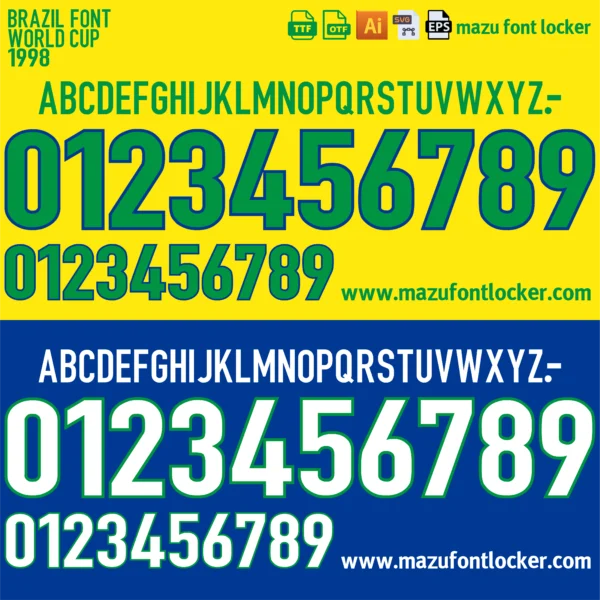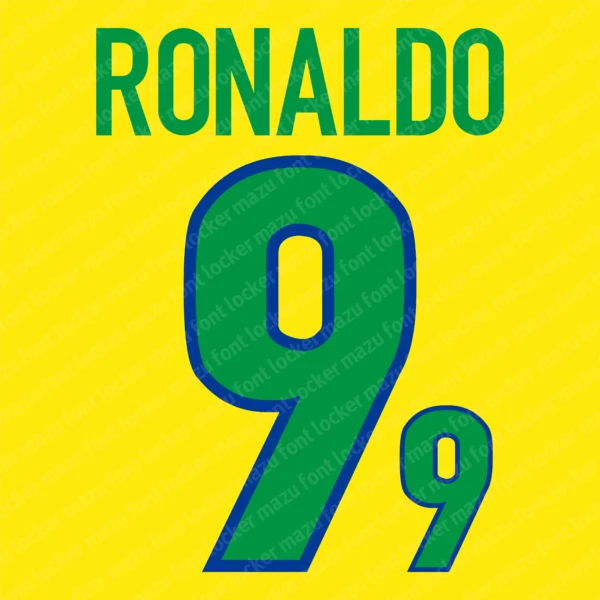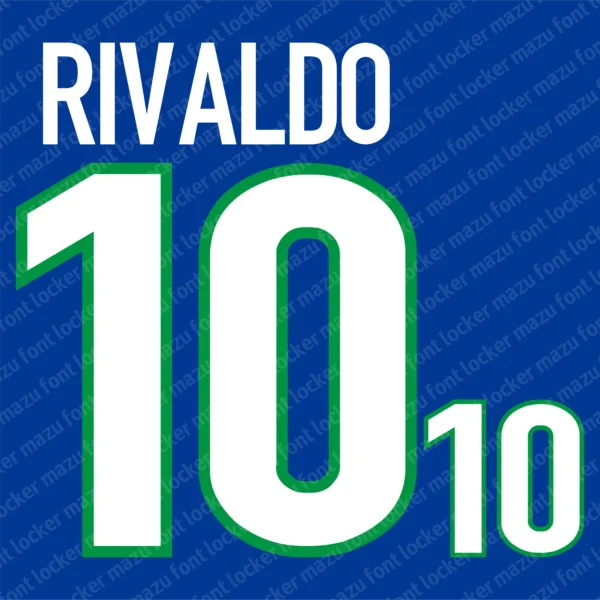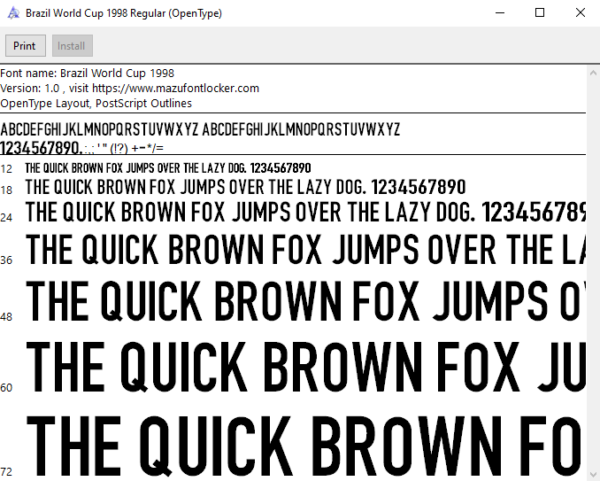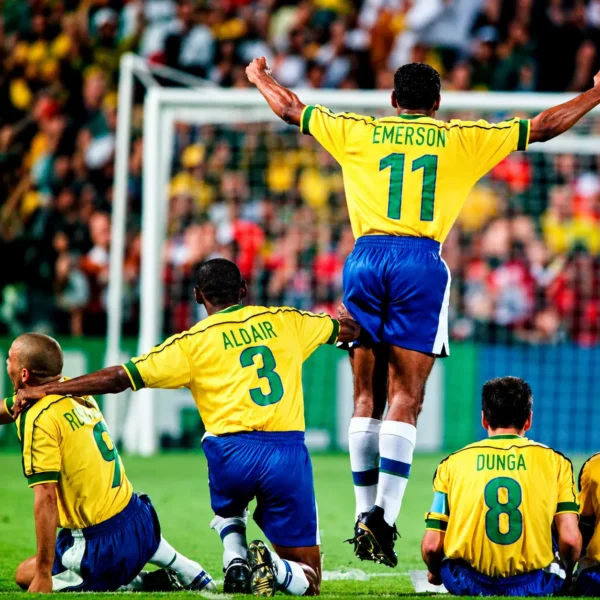
Brazil World Cup 1998 Font Vector – Ultimate Explosive Yellow-Green Powerhouse
Download the Brazil World Cup 1998 Font Vector and powerfully recreate the bold, vibrant, and explosive match-style lettering worn by the Brazilian National Team during their legendary 1998 FIFA World Cup campaign. This font captures the fiery and commanding typography that embodies the passionate yellow-and-green Canarinho spirit, delivering unmatched authenticity and energy for premium jersey mockups and football designs.
Brazil World Cup 1998 Font – Authentic Canarinho Typeface
The Brazil World Cup 1998 Font is a premium typeface that accurately recreates the official match lettering worn by the Brazil national team during the 1998 FIFA World Cup in France. This high-quality font kit captures the bold, vibrant, and iconic typography that represents the legendary Canarinho campaign.
Designed for professional designers and passionate Brazil fans, the Brazil World Cup 1998 Font delivers perfect authenticity for creating retro jersey mockups, fan merchandise, matchday posters, social media graphics, and much more. It blends beautifully with the team’s iconic yellow and green colors.
Why Choose Brazil World Cup 1998 Font
This font stands out because of its sharp details and strong historical identity. Every letter and number is crafted to match the exact style used on the players’ shirts during the 1998 World Cup. Whether you are making realistic retro shirt templates or nostalgic football content, the Brazil World Cup 1998 Font gives your designs that authentic Canarinho look.
The letterforms in the Brazil World Cup 1998 Font are tall, bold, and highly readable. The strokes have a strong and controlled weight that looks powerful on the back of jerseys while maintaining excellent clarity and elegance.
The numerals use bold curves and firm edges, giving them a confident and premium appearance. This design ensures great legibility whether used in large print formats, digital mockups, or video content.
- Full uppercase A–Z and numbers 0–9 in authentic Brazil 1998 style
- Special Brazil CBF crest glyph for accurate shirt number detailing
- Multilingual Latin character support including diacritics
- Create highly realistic Brazil 1998 national team jersey mockups with accurate lettering
- Design stunning retro World Cup posters, score graphics, and squad announcements
- Produce custom Canarinho merchandise with a classic football aesthetic
- Includes the exact crest glyph placement used under player numbers
Brazil in the 1998 World Cup